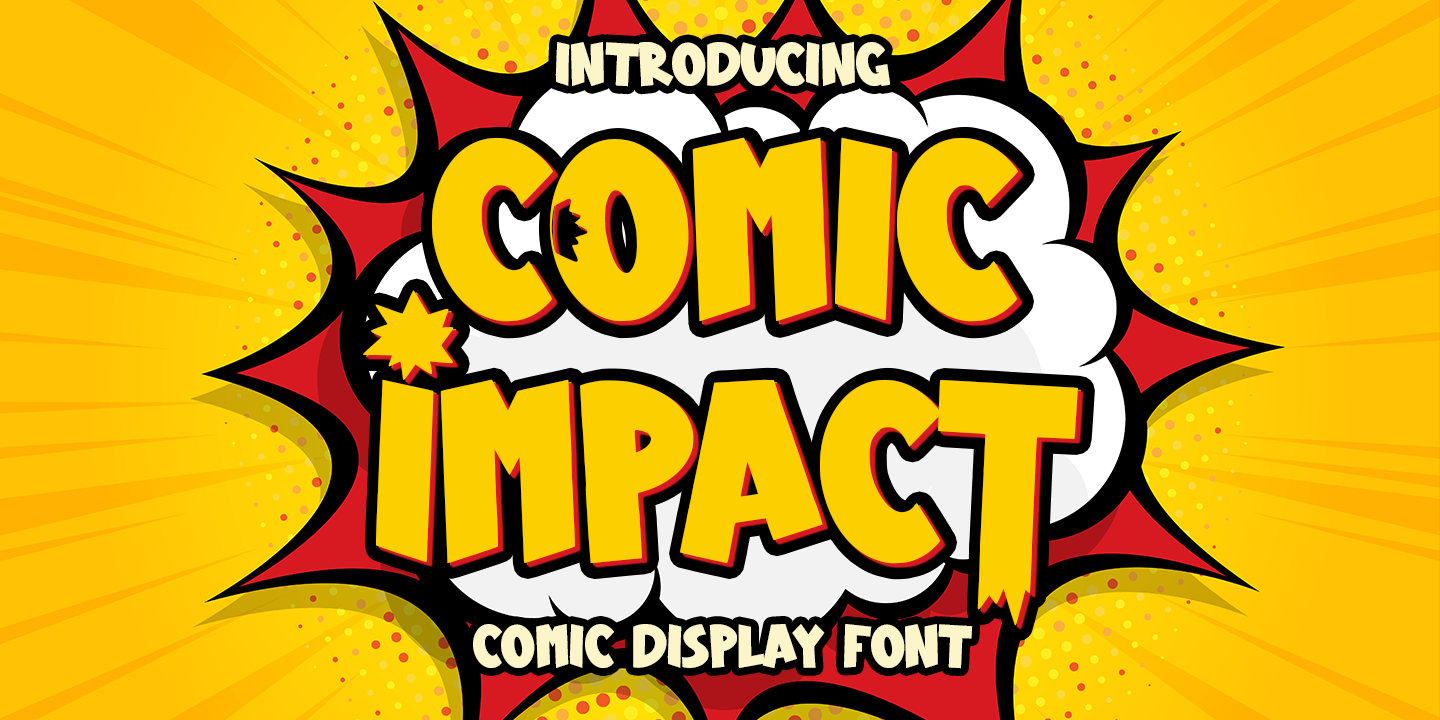
Comic Impact Font is perfect for comic book publications, graphic novel designs, superhero branding campaigns, cartoon character promotions, gaming graphics, children's entertainment materials, action-packed advertising, and dynamic storytelling communications.
This explosive display typeface is exciting because it captures the high-energy action and visual punch of classic comic books through bold letterforms that leap off the page with the same dramatic impact as superhero sound effects and action sequences.
The Comic Impact Font family includes regular and heavy weights with comic-inspired alternates, action decorative elements, and superhero variants that enhance the dynamic, action-packed atmosphere of any comic book design project.
Dynamic and action-packed, Comic Impact Font Free Download brings the explosive energy and visual excitement of comic book storytelling to contemporary typography through authentic superhero character. This electrifying font embodies the heroic adventure and larger-than-life action that defines great comic entertainment, making it essential for creators who understand that comics are about more than stories—they're about creating visual experiences that make readers feel the action. Its bold character reflects the dramatic impact and emotional intensity that transforms ordinary moments into superhero adventures, resonating with audiences who appreciate the art form that combines visual storytelling with literary narrative. Perfect for comic publishers and entertainment companies, this font ensures your message carries the superhero authenticity and comic book credibility that fans expect from genuine comic entertainment. Whether used for graphic novel covers or superhero merchandise, Comic Impact Font Free Download delivers the comic book excitement and heroic presence that connects with people who understand that great comics inspire us to believe in heroes and the power of good triumphing over evil.